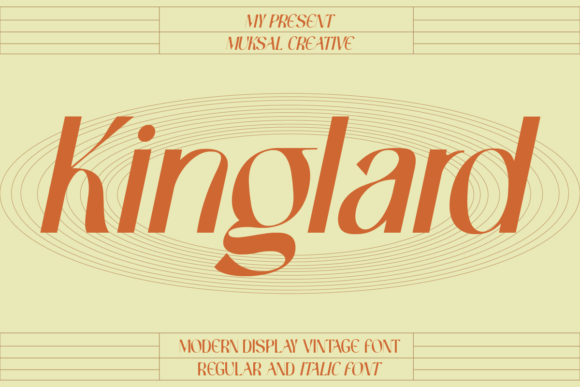
Introducing Kinglard Font - Unleash Your Creativity with Timeless Elegance
In the realm of typography, Kinglard Font emerges as a majestic display font, a crown jewel that adorns your creative endeavors with timeless elegance. Its versatile nature seamlessly adapts to a myriad of design projects, like a chameleon that blends effortlessly into any environment.
Whether you're embarking on an editorial journey, crafting a captivating logo, or adding a touch of sophistication to your clothing brand, Kinglard Font stands as your steadfast companion. Its seamless adaptability extends to product packaging, magazine headers, and beyond, transforming ordinary designs into captivating masterpieces.
For those seeking the perfect font for wedding invitations, Kinglard Font emerges as the radiant star, promising to elevate your special day to an unforgettable occasion. Its intricate details and fluid strokes lend an air of romance and charm, encapsulating the essence of love and commitment.
With Kinglard Font as your creative ally, the possibilities are boundless. Let your imagination soar as you craft logos that radiate professionalism and distinction. Transform your clothing brand into a fashion-forward haven, where each design exudes an aura of exclusivity. Create product packaging that captivates customers, enticing them to embark on an extraordinary sensory experience.
Kinglard Font's versatility extends to the digital realm, where it effortlessly enhances your online presence. Design magazine headers that command attention, leaving a lasting impression on your readers. Utilize Kinglard Font as a stylish text overlay, gracefully adorning any background image with an aura of sophistication.
Embrace Kinglard Font and unlock the gateway to a world of creative possibilities. Let your designs blossom with timeless elegance, captivating audiences with every stroke.